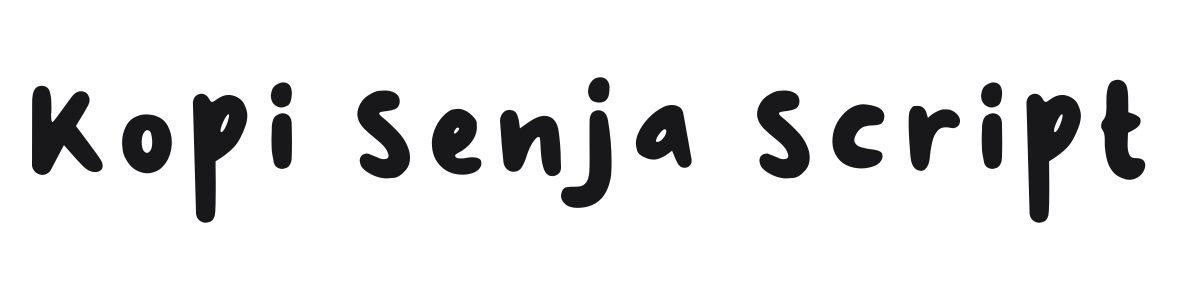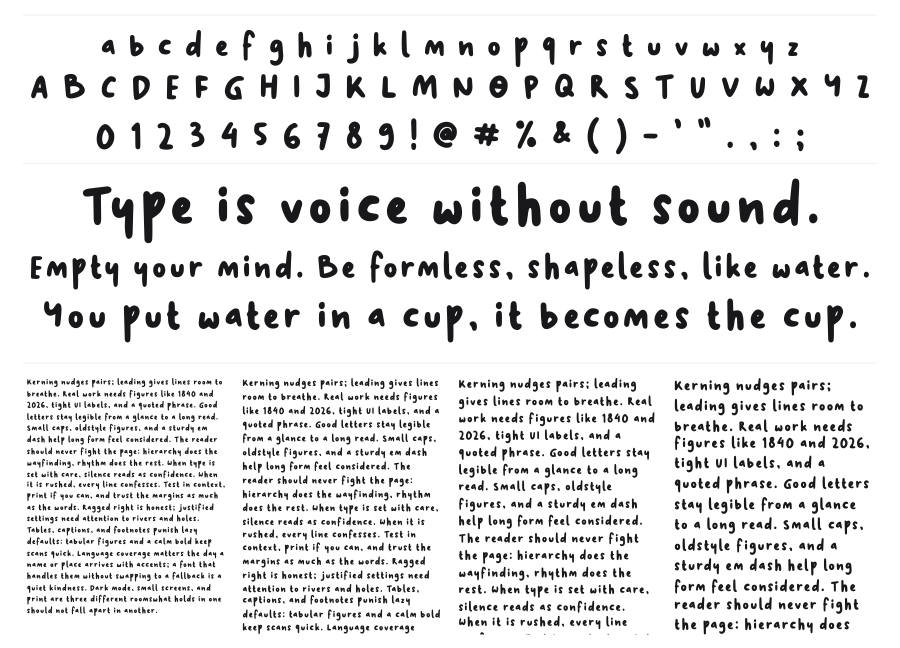
Kopi Senja Script
Kopi Senja Script is a bold, bubbly handwritten font with a relaxed marker-drawn personality. The chunky rounded strokes and gently irregular baseline give it an authentic hand-lettered quality without feeling sloppy. It works naturally on café branding, product packaging, and any project that wants to feel warm and approachable.